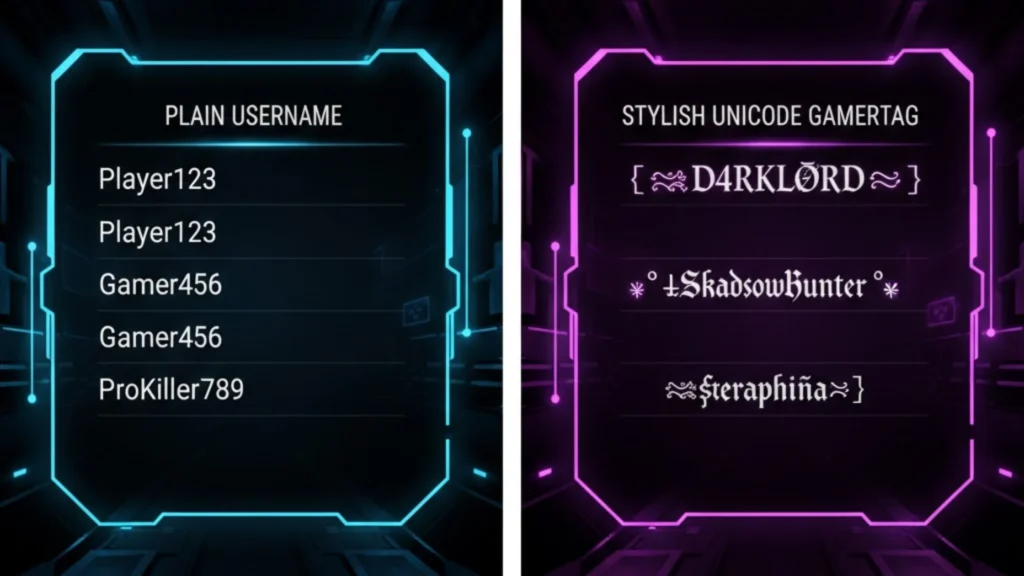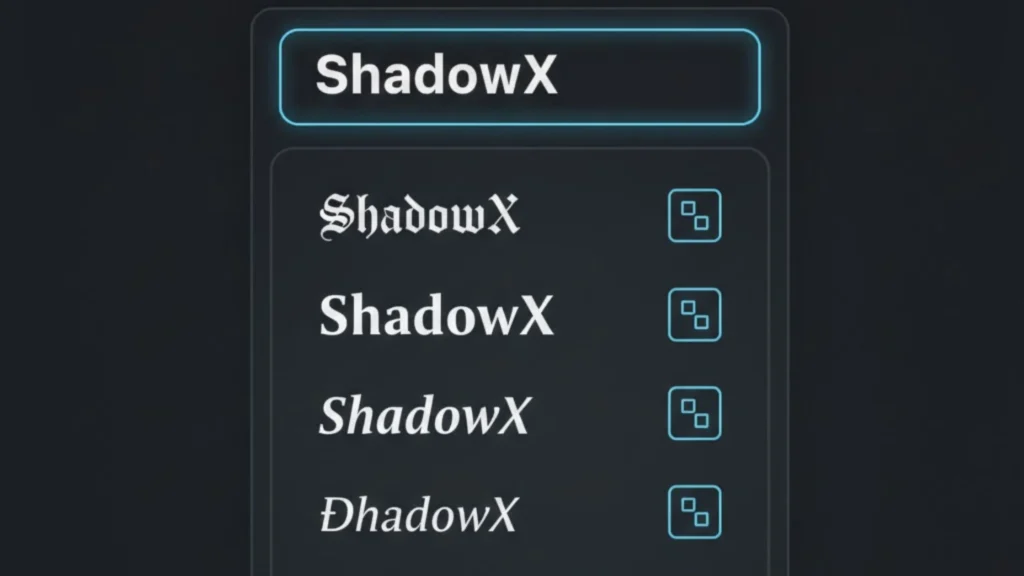
Stylish gamer name font styles created using a cool font generator for gaming usernames
Your identity is your gaming name.
Your username is the first thing other players see when you play competitive games like Call of Duty, Free Fire, or PlayerUnknown’s Battlegrounds. You can turn a plain name into a fashionable and distinctive gamer identity with the aid of a nice font generator for gaming usernames.
This comprehensive 2026 tutorial will teach you how to use Unicode fonts and other resources to create professional-level, fashionable usernames.
Why Stylish Gaming Names Matter
A typical username appears typical.
However, a name typed in distinctive gaming username fonts:
• stands out in the lobby
• appears more polished.
• strengthens the branding of gamers
• makes your profile stand out.
For this reason, gamers look for resources such as:
• fashionable gaming name generator
• sophisticated username generator
• generator for gaming nicknames
Because in competitive gaming, presentation is important.
Comparison between normal gaming username and stylish Unicode gamer name in competitive lobby
What Is a Cool Font Generator?
An online program that transforms plain text into fashionable Unicode-based font styles is called a cool font generator.
Rather of manually editing or installing programs, you can:
• Create instantaneous gamer name font styles
• Copy & paste straight into games.
• Make use of unique Unicode gaming typefaces
• Make distinctive symbols and fashionable characters.
Cool Fonts for Popular Games
Different Unicode characters are supported by different games. This is how fashionable text functions in well-known titles.
๐ŸŽฎ Cool Fonts for PUBG Name
Players frequently utilize:
• ornamental symbols
• Unicode letters in bold
• Styles of little caps
Because players want their tag to look competitive and distinctive, searches like “cool fonts for PUBG name” are common.
๐ŸŽฎ Stylish Text for Free Fire
Players of Free Fire often utilize:
• Crown emblems
• Unique characters
• Small, fashionable text
For this reason, one of the most popular gaming text variations is “stylish text for Free Fire.”
Before changing your name, a generator lets you see which characters are supported.
Types of Gamer Name Font Styles You Can Create
The following are some common font types for gamer names:
• ๐•ป๐–—๐–” ๐•ฒ๐–†๐–’๐–Š๐–—
• ๐’๐๐ˆ๐๐„๐‘
• โ˜…ๅฝกLegendๅฝกโ˜…
• สŸแด‡ษขแด‡ษดแด…
Because they use Unicode game fonts rather than actual downloaded font files, these styles are effective.
Compatibility on the majority of systems and devices is guaranteed by Unicode.
Refer to the Unicode Consortium’s guidelines for information on character standards.
How to Use a Stylish Gaming Name Generator
Take these easy steps:
1๏ธโƒฃ Enter the username you want to use.
2๏ธโƒฃ Create several fashionable variants
3๏ธโƒฃ Select your preferred design.
4๏ธโƒฃ In your game, copy and paste
This is effective for:
• Players in competitive esports
• Streamers
• Those who play casually
• Leaders of clans
A excellent gaming nickname generator eliminates trial-and-error formatting and saves time.
Example of a cool font generator for gaming usernames converting plain text into stylish Unicode fonts
Why Unicode Fonts Are Better for Gaming
Players like myself experiment with third-party apps.
However, online Unicode generators are superior due to:
• Installation is not necessary.
• Quick preview
• Simple copy-and-paste
• Cleaner and safer
• Suitable for a variety of games
Because of this, using a sophisticated username generator is more useful than manually altering text.
Pro Tips for Creating a Pro Gamer Stylish Name
โœ” Make it readable.
โœ” Don’t use too many symbols.
โœ” Before deciding, test the name.
โœ” Make it simple but distinctive.
โœ” Stay within the parameters of the game.
A trendy moniker for a professional gamer should be both imaginative and simple to identify while playing.
Frequently Asked Questions
Are cool font generators safe to use?
Indeed. All they do is translate text into Unicode characters. They don’t change your account or game.
Will stylish usernames work in all games?
Not all the time. Certain Unicode characters are restricted in some games. Before verifying your new name, always do a test.
What is the difference between a stylish gaming name generator and a normal font app?
While standard font apps install unique font files that typically don’t work in games, a chic gaming name generator employs Unicode characters that are interoperable across devices.
Can I change my name multiple times?
The rules of your game will determine that. Rename cards are charged in certain games.
Final Thoughts
Your gaming persona is reflected in your username.
You may generate fashionable, polished names without the need for complex design tools by using a great font generator for gaming usernames.
A trustworthy online generator makes the process quick and easy, whether you want cool fonts for PUBG names, fashionable lettering for Free Fire, or distinctive gamer name font styles.
Upgrade your gaming persona now to make a statement in every lobby.